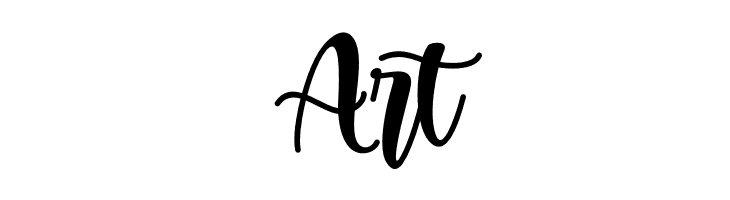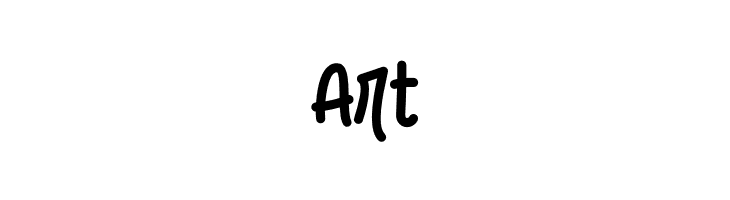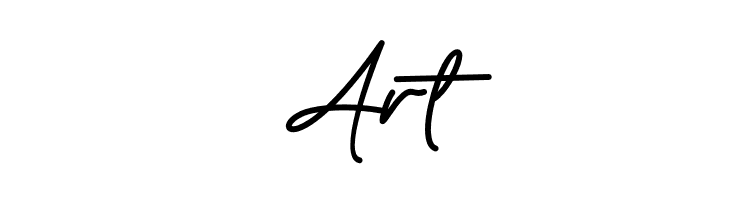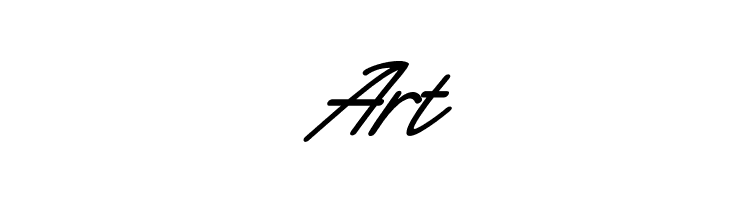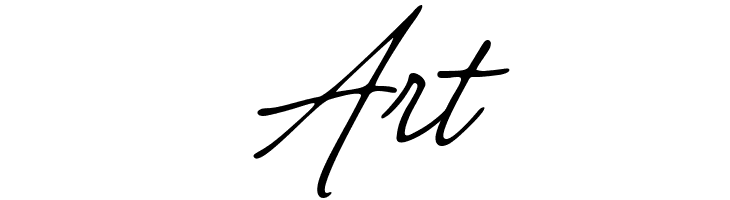
A playful, bold, and rounded hand-drawn font with a whimsical touch.
A bold, expressive script font with a flowing, handwritten style.
A bold, playful handwritten font with rounded strokes and a casual style.
A modern, cursive font with a flowing, handwritten style.
A playful, bold, and rounded script font with a whimsical and friendly style.
A flowing, elegant script font with interconnected characters and medium contrast.
A dynamic, cursive script font with fluid, connected letters and a graceful slant.
A playful, handwritten font with smooth, rounded edges and a casual style.
A sophisticated cursive script font with a seamless, flowing style.
A graceful script font with fluid, connected strokes and a sophisticated appearance.